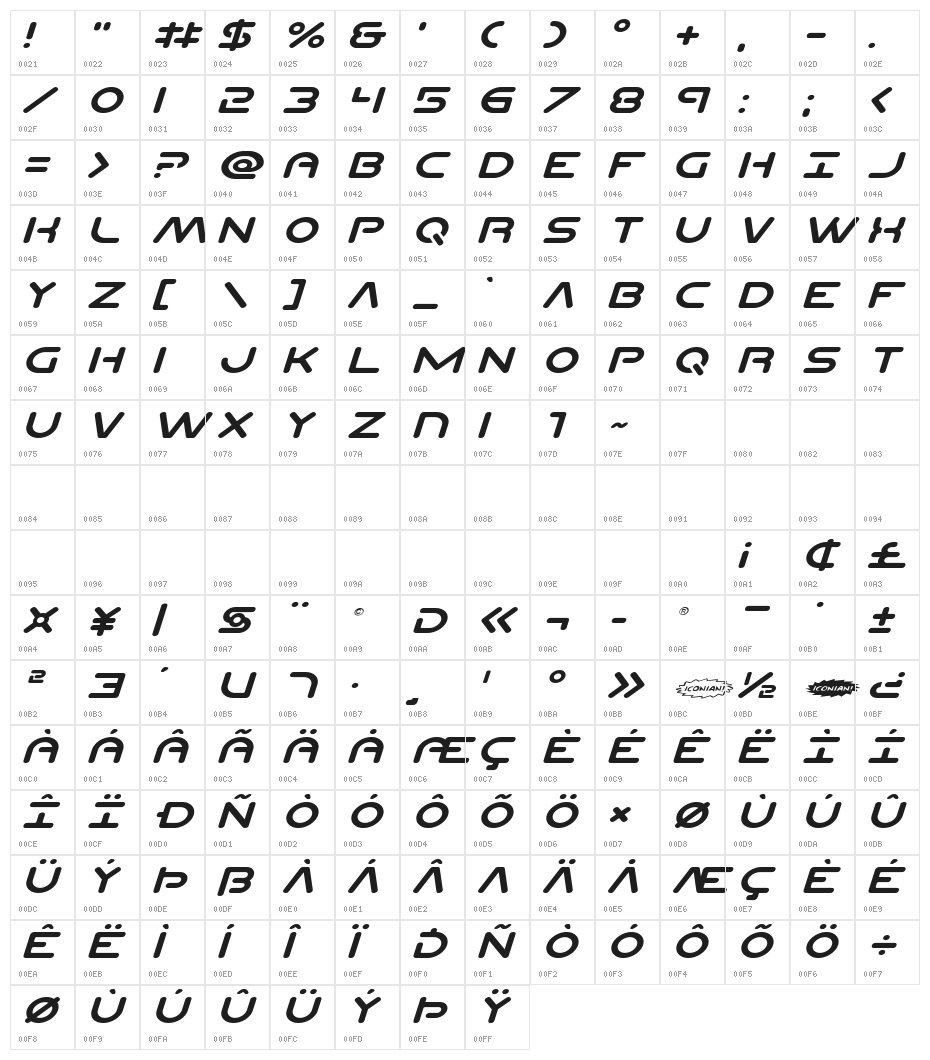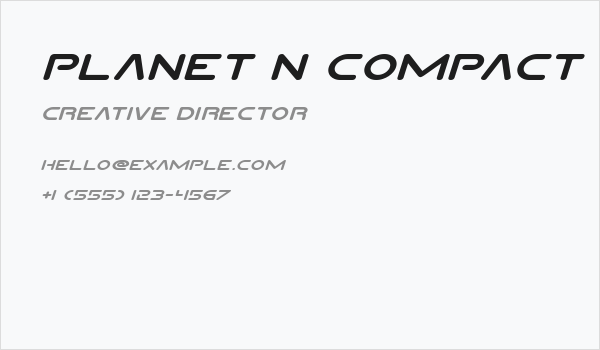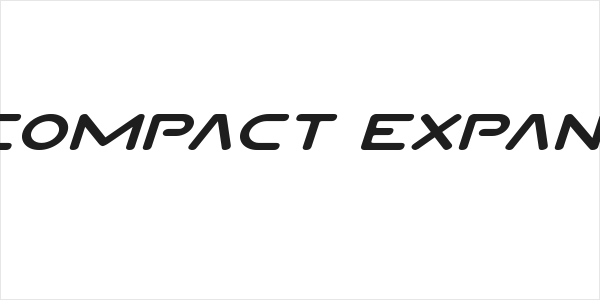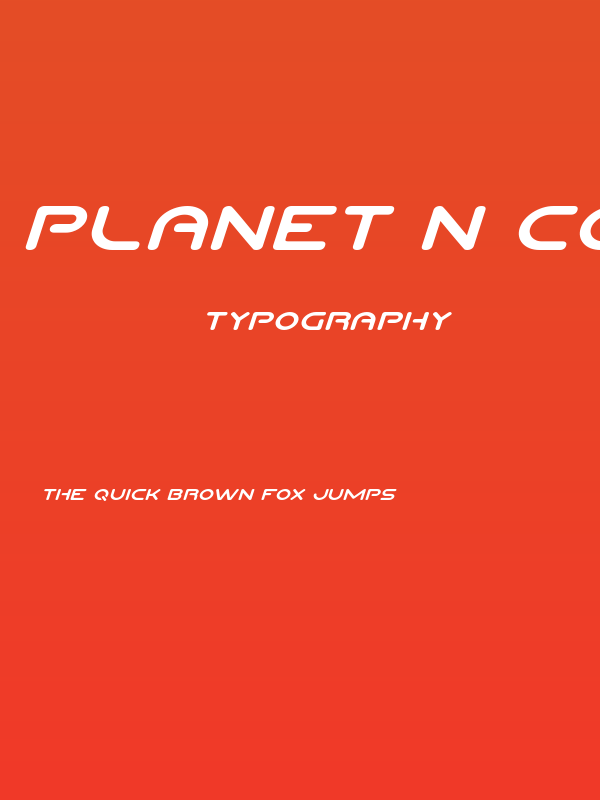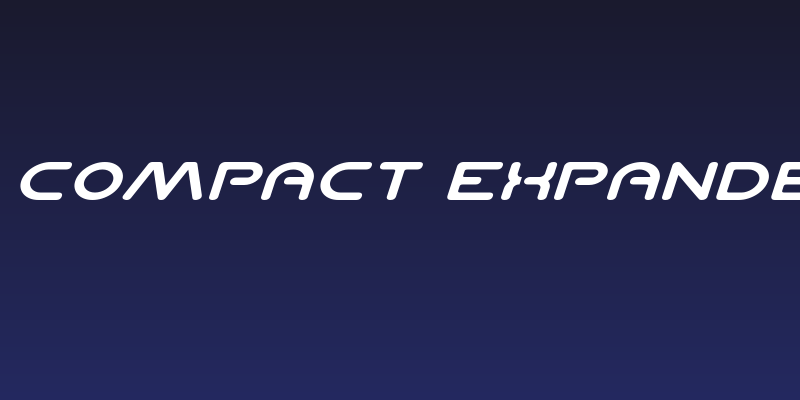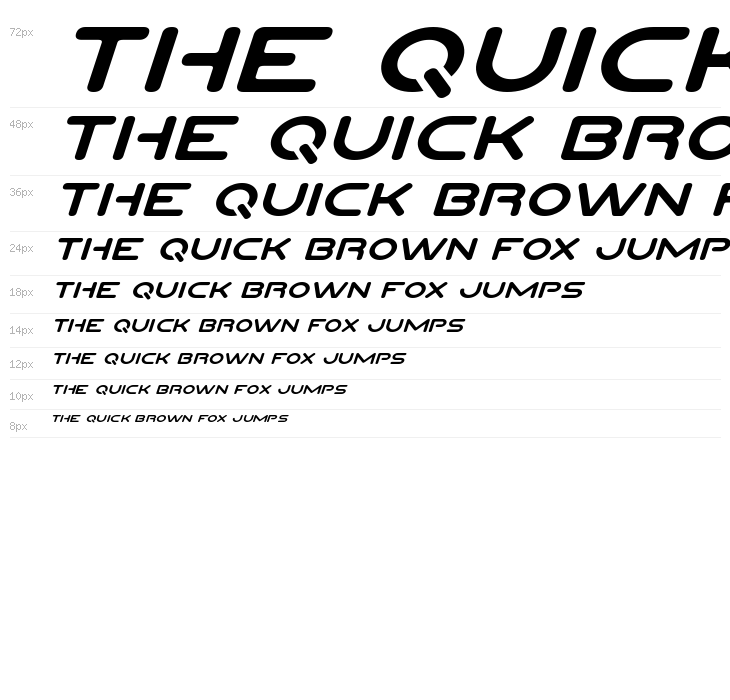
Planet N Compact Expanded Italic Font
Planet N Compact Expanded Italic Description
This font features a sleek, futuristic design with a distinct italic slant, giving it a dynamic and forward-moving appearance. The characters are slightly expanded, providing a sense of openness and readability. The rounded edges and smooth curves contribute to a modern aesthetic, while the consistent stroke width ensures uniformity across all characters. The font's geometric structure is evident in the symmetrical shapes and balanced proportions, making it suitable for contemporary design projects. The inclusion of both uppercase and lowercase letters, along with numerals and special characters, offers versatility for various applications.
| Use Case | Headlines, Logos, Display text |
| Proposed Projects | Ideal for technology branding, sci-fi movie posters, modern web design, and innovative product packaging. |